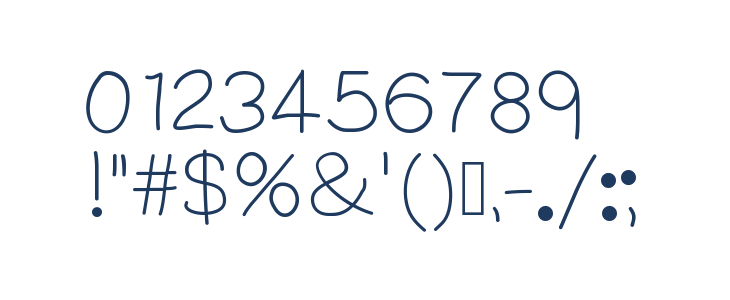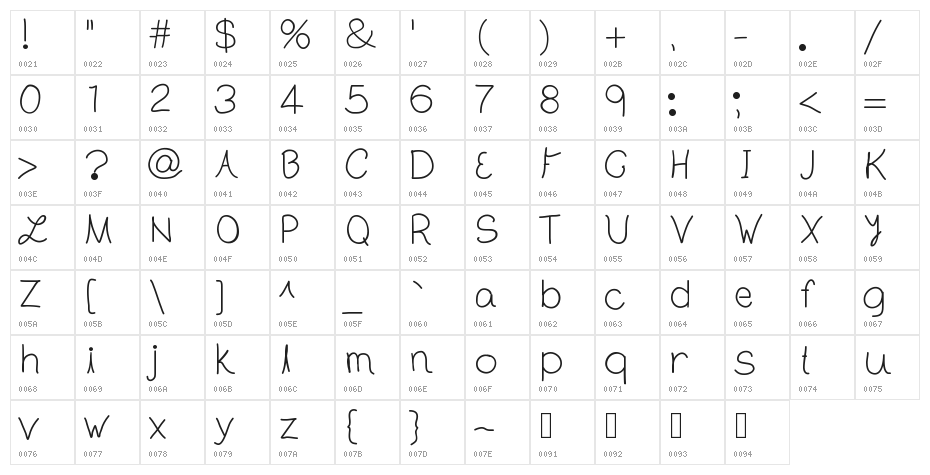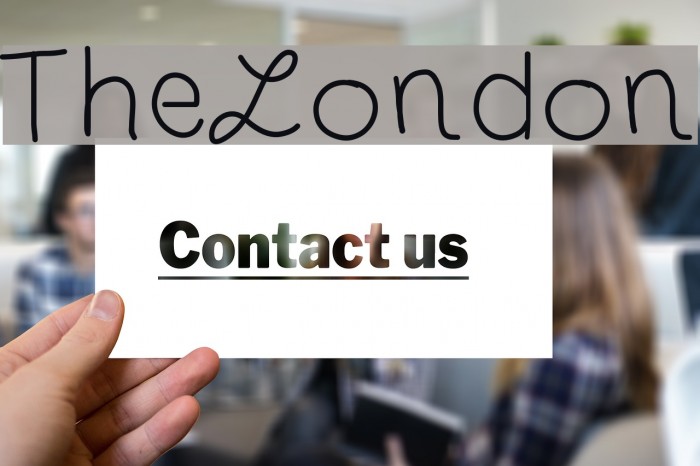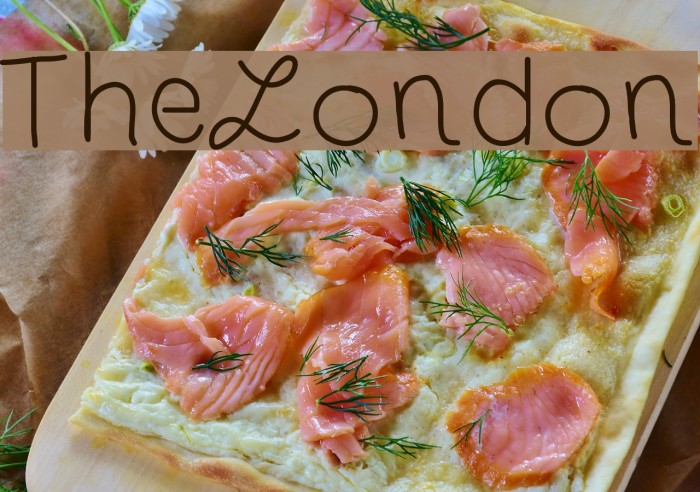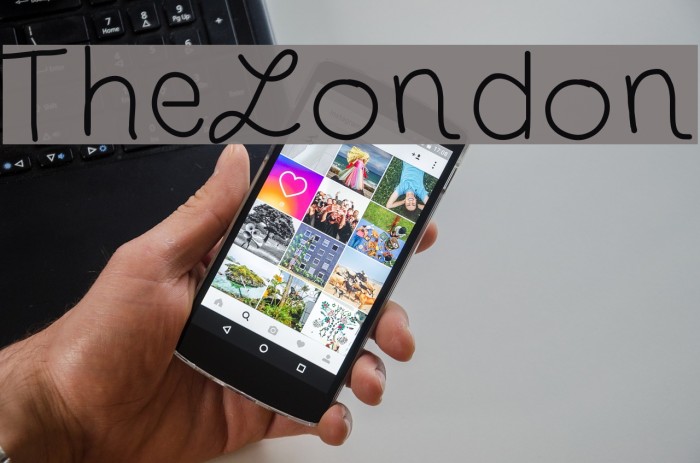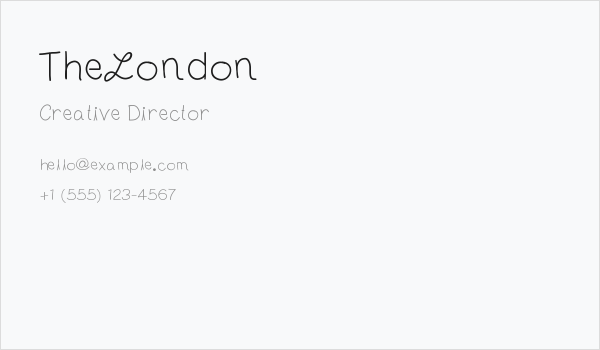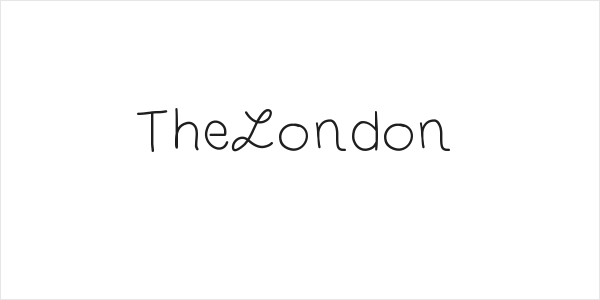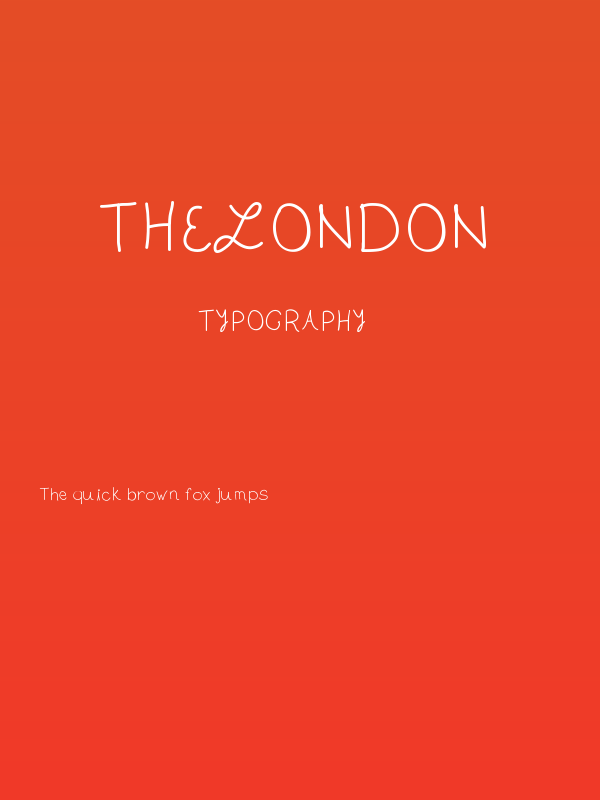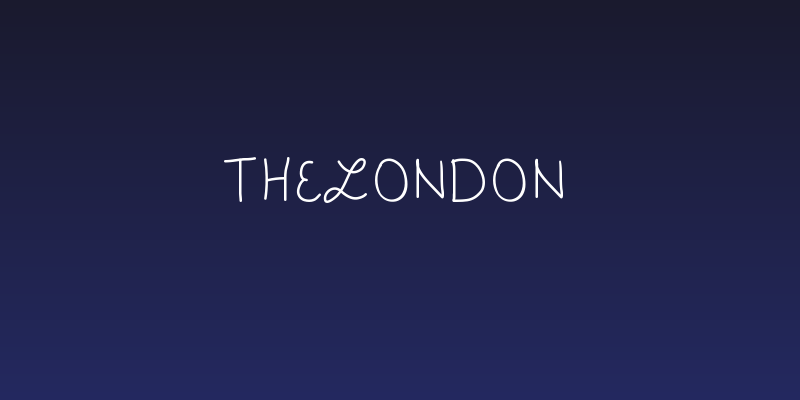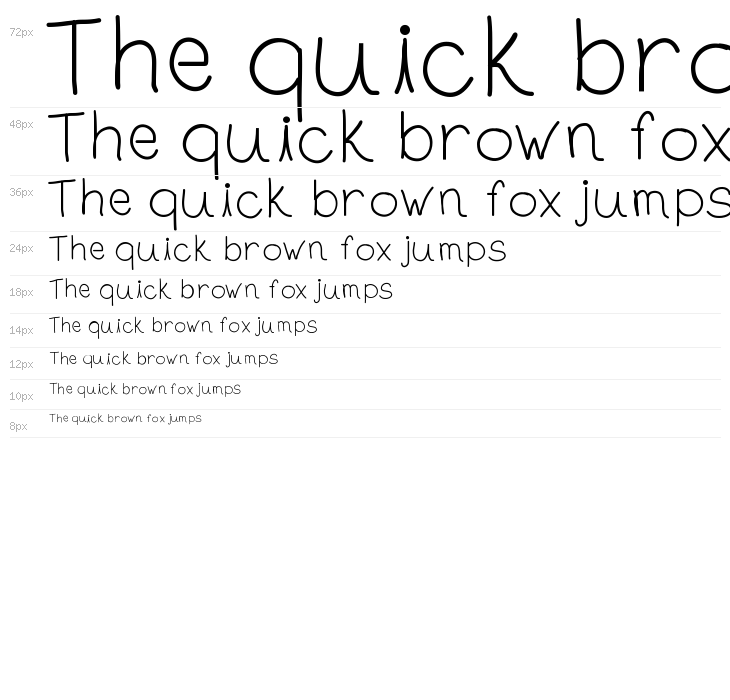
TheLondon Font
TheLondon Description
This font features a playful and whimsical design with a handwritten style that exudes a sense of casual elegance. The characters are slightly irregular, giving it a unique and personal touch. The strokes are thin and consistent, with rounded edges that soften the overall appearance. The uppercase letters maintain a consistent height, while the lowercase letters vary slightly, adding to the font's charm. Numbers and special characters are designed to match the playful style, making it versatile for various creative projects.
Overall StyleCasual, Whimsical
Use CaseHeadlines, Informal text, Creative projects
Proposed ProjectsIdeal for greeting cards, children's books, casual invitations, and playful branding projects.